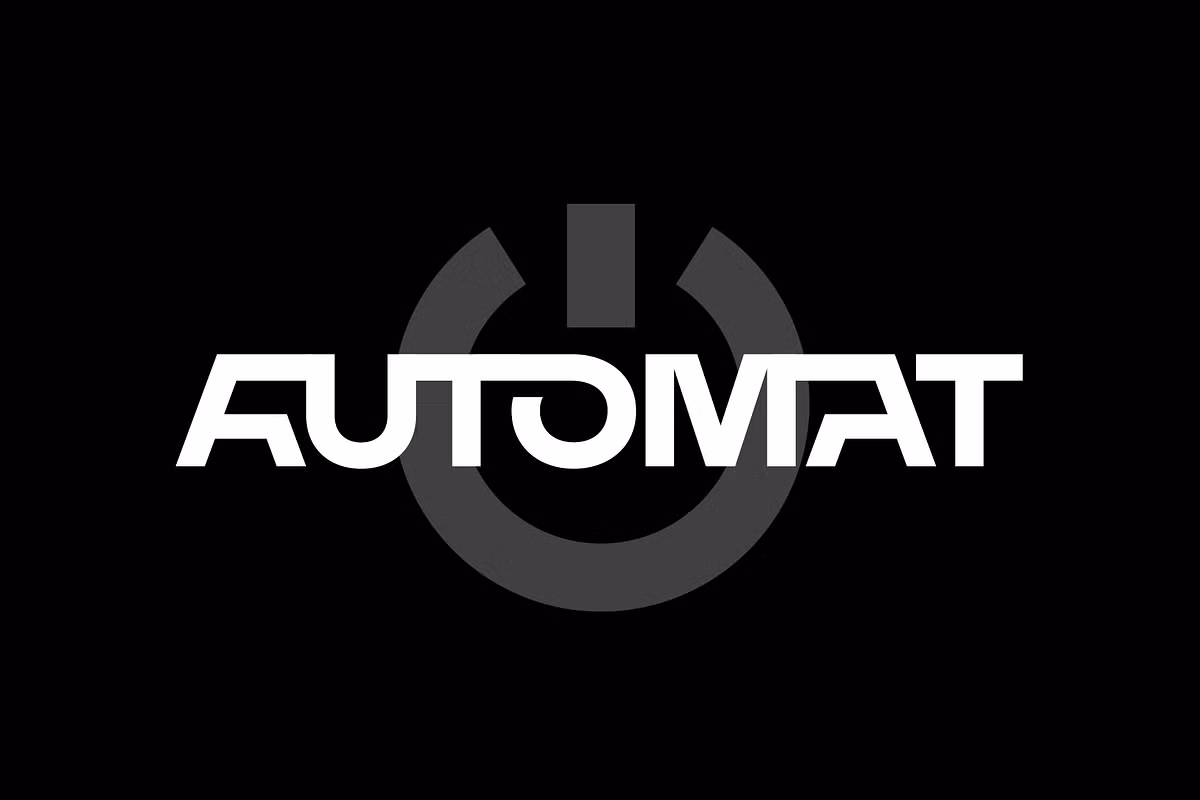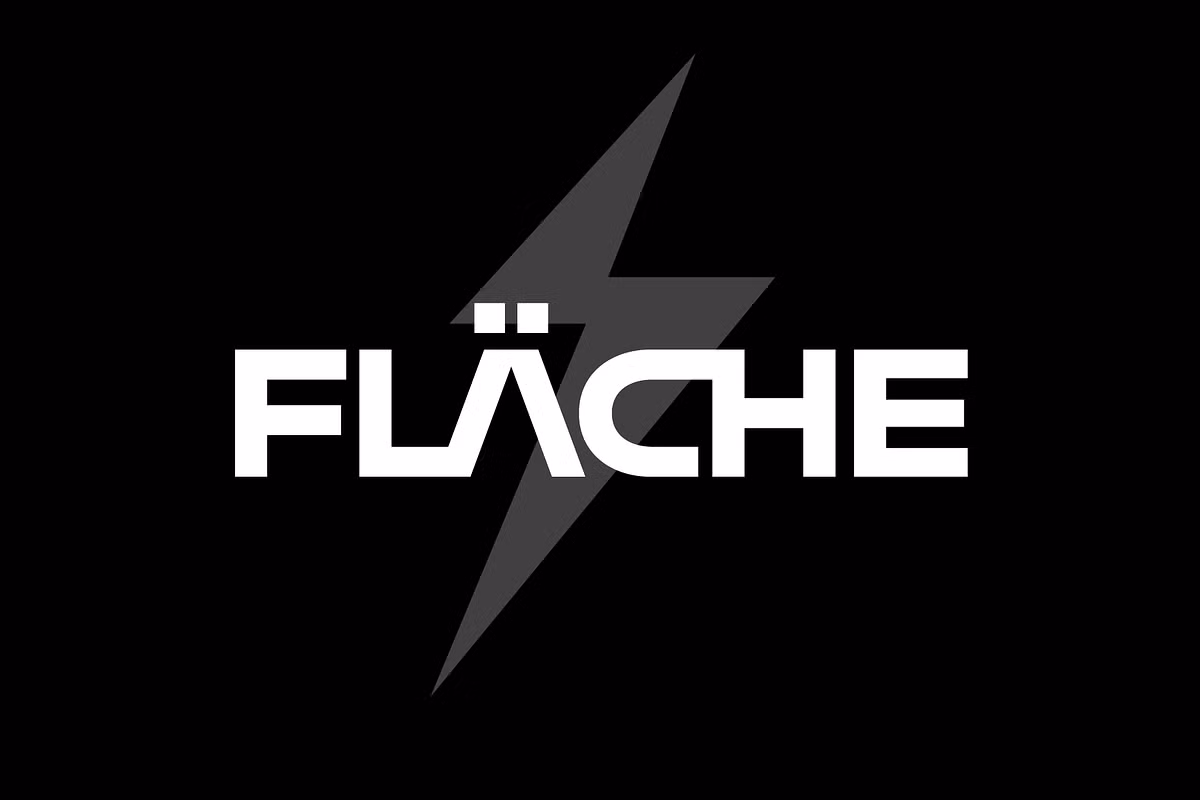
Fander Font: Versatile Minimalist Typeface for Logos and Titles
The Fander font family is a typeface made for logos, wordmarks, titles and taglines. The Fander font family gives designers a structure that lets them be flexible. The Fander font family offers, up to twelve versions, for each letter. The Fander font family lets you try looks and pick the one for your project. When you work with the Fander font family you can mix the alternates to get the style you need for any design.
The Fander font has a design style. The Fander font focuses on simplicity and clarity. I think the Fander font feels clean and easy to read. The Fander font works well in the design world today because designers look for lines and a straight look. The Fander font uses shapes and balanced sizes. The Fander font is a choice, for branding and identity projects.
Minimalism, in design often shows an simple look. I see Minimalism in design keep things clear. Fander follows that idea. Fander makes your logos and titles look modern and also feel professional. I use the font for projects. If you make a startup logo or a modern title, for a publication the Fander font gives you a base. The Fander font helps you start with a look.
Versatility in Application
Fander is not just, for logos. I can use Fander on the platforms on the printed materials and in the advertising campaigns. I have tried Fander on things. Fander works well. Fander’s clean look makes Fander good for the website for the product packaging for the business cards and, for the materials.
Character Sets
The Fander font family has a big character set. The character set gives each letter, up to twelve characters. The alternate characters give me ways to change my text. I use the Fander font family because the many choices help me create wordmarks or titles that stand out from the crowd.
I see that Fander includes the letters and also the basic multilingual letters. The font works in language contexts. I think Fander makes Fander a good choice, for brands that want the look, in different markets.
The designers created the Fander font for use cases. The Fander font gives a choice, for design projects. I have tried the Fander font in my work. The Fander font works well in situations. Below are some scenarios where the Fander font can shine:
• Logo Design: I create logos. Simple logos show the core of your brand, with look.
• Wordmarks: Design unique wordmarks that are instantly recognizable and memorable.
• Titles and Headlines: Use Fander for impactful titles on websites, presentations, and printed materials.
• Taglines: Use the font when you design taglines. I notice that taglines look better when taglines share the font.
When I use the Fander font makes my design projects look good and clear. The Fander font also makes my design projects work well to share my message.
Pairing fonts can make the design look better. Fander has compatibility with typefaces. Below are some pairing suggestions that I use to improve my projects:
• Fander + Montserrat: Combine Fander’s minimalist style with Montserrat’s geometric forms for a modern look.
• Fander + Open Sans: I think Fander has lines. I think Open Sans looks friendly. The clean lines of Fander match the look of Open Sans. The match makes Fander and Open Sans perfect, for web designs.
• Fander + Lora: I notice that Fander and Lora create a contrast. The modern sans serif style of Fander sits next, to the serif style of Lora. That contrast works well for layouts.
I have tried the pairings. Experiment, with the pairings. The pairings help you find the balance, in your designs. The typography becomes functional. The typography also becomes visually engaging.
The Fander font family is a typeface that works well for logos, titles and taglines. The Fander font family has features made for those uses. The Fander font family includes a large character set. The Fander font family offers, up to twelve characters for each letter. The Fander font family lets designers create designs. The Fander font family has a design style. Can be used in many ways. The Fander font family is a tool, for design projects. I have used the Fander font family for a logo and the Fander font family gave a result.
If you are a designer or a beginner you can add the Fander font to your toolkit. I have used the Fander font. I see how it can lift my projects. The Fander font makes it easier to get the look you want. The Fander font also opens choices for your typography today.